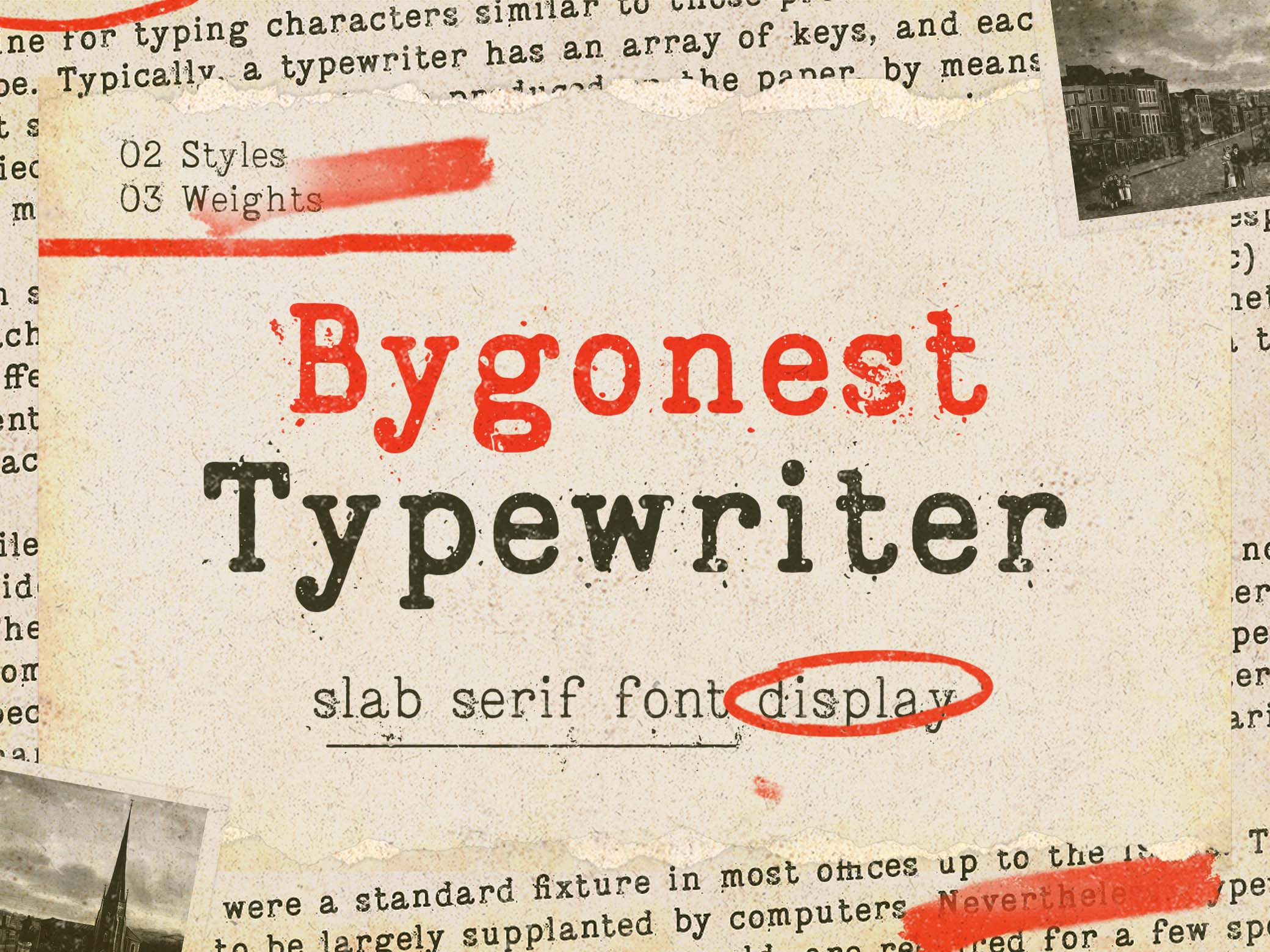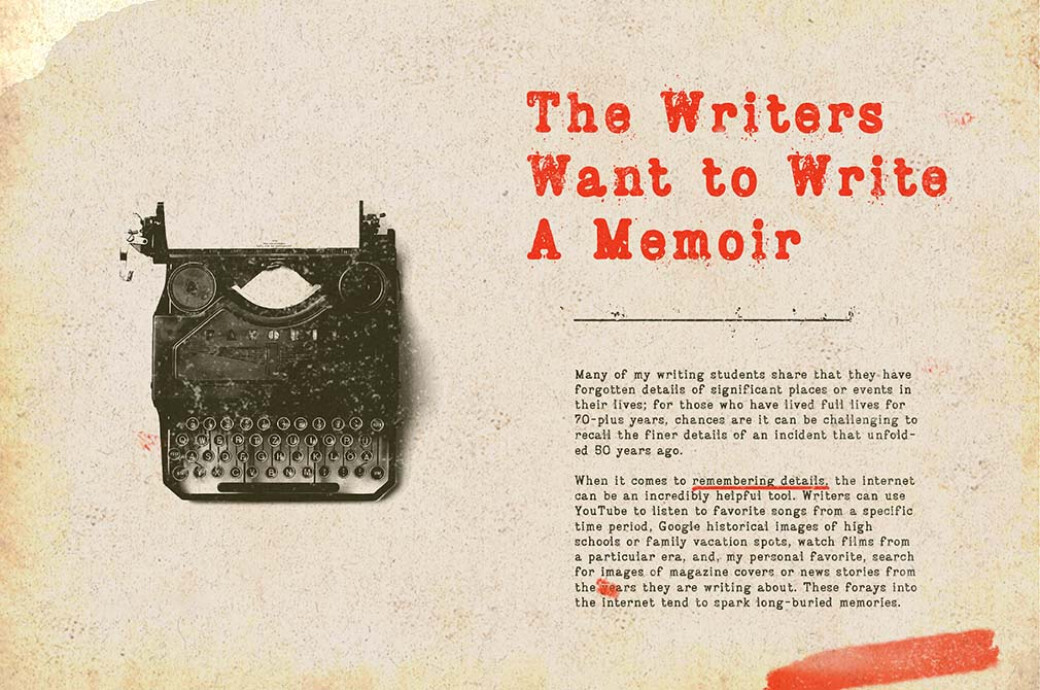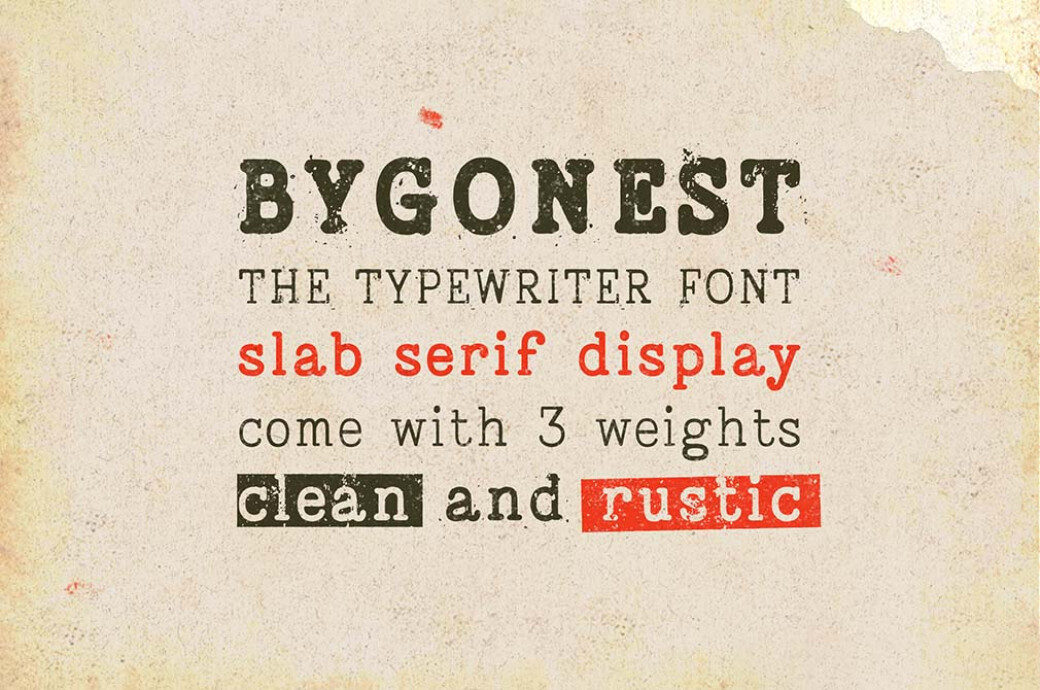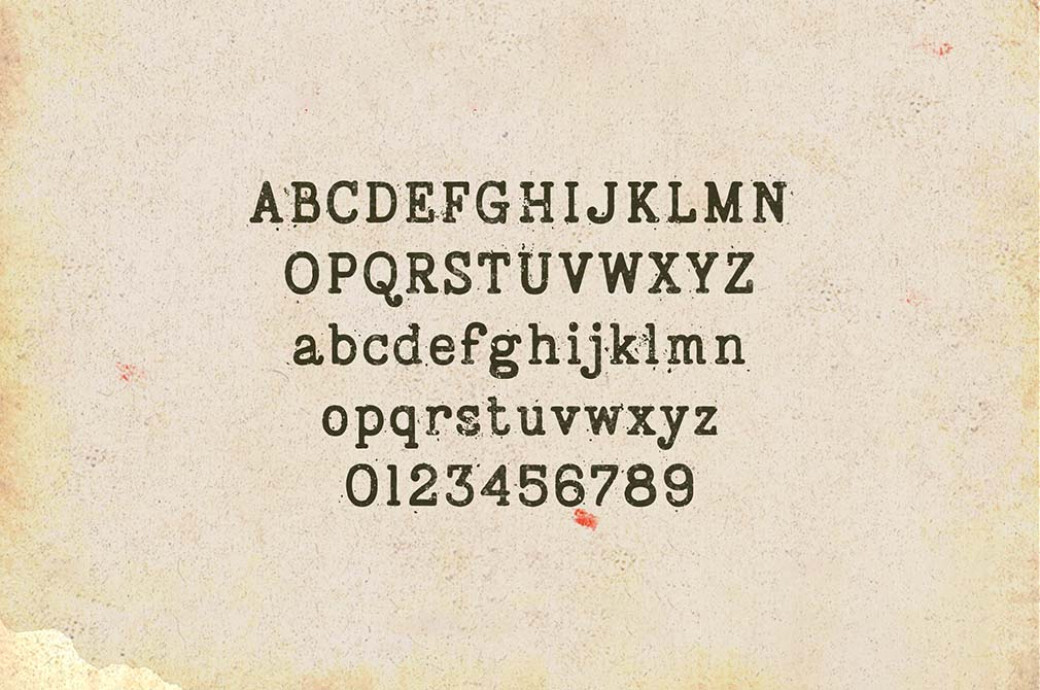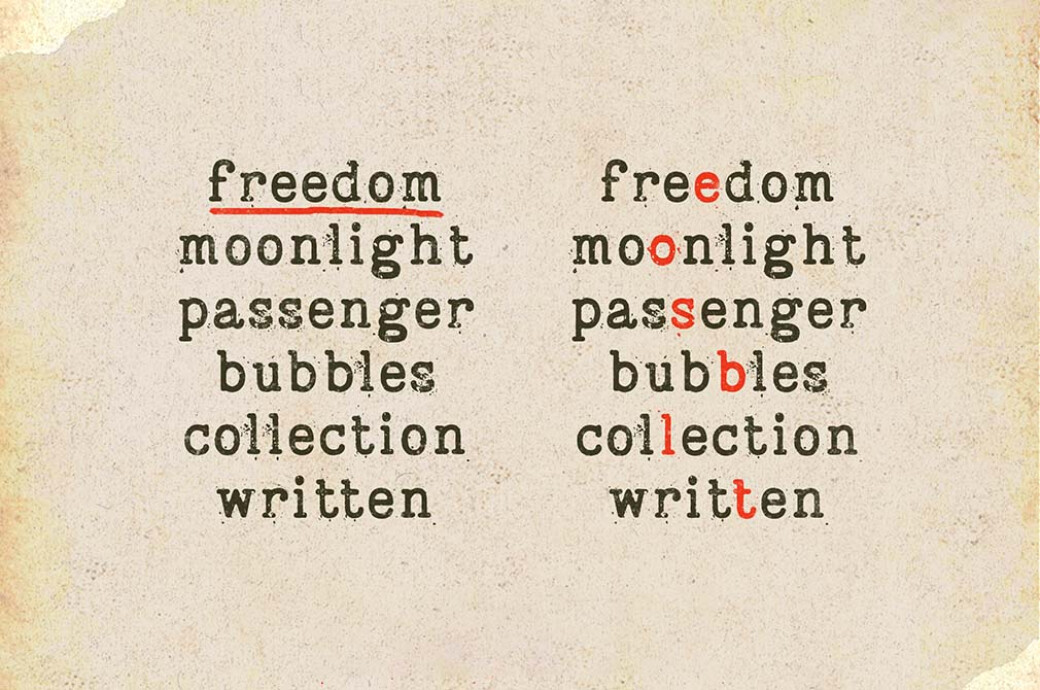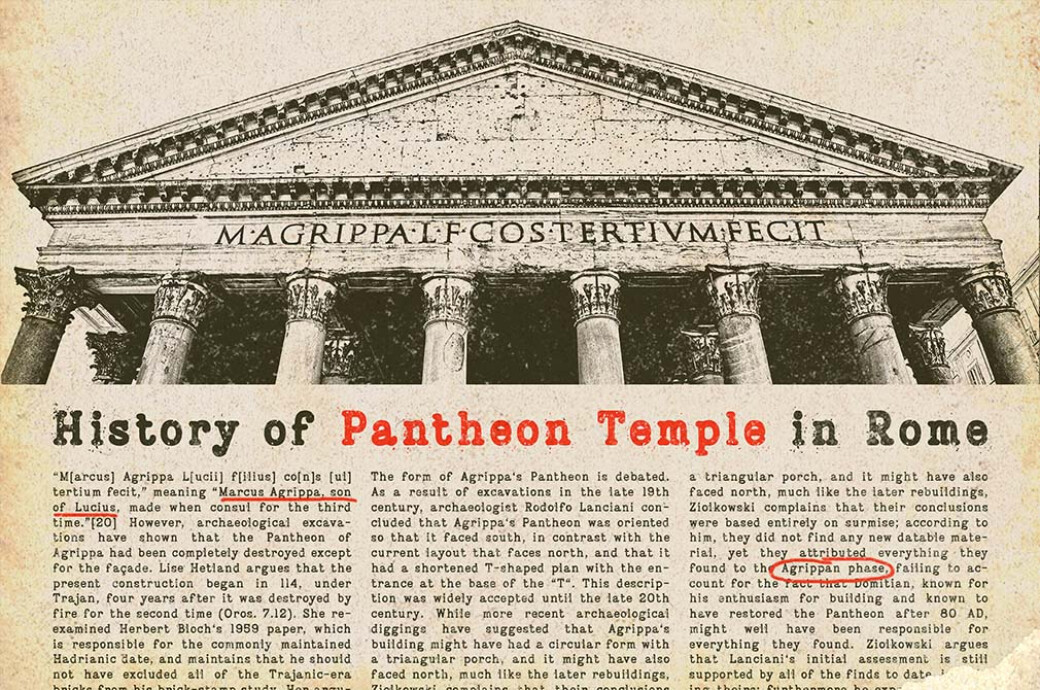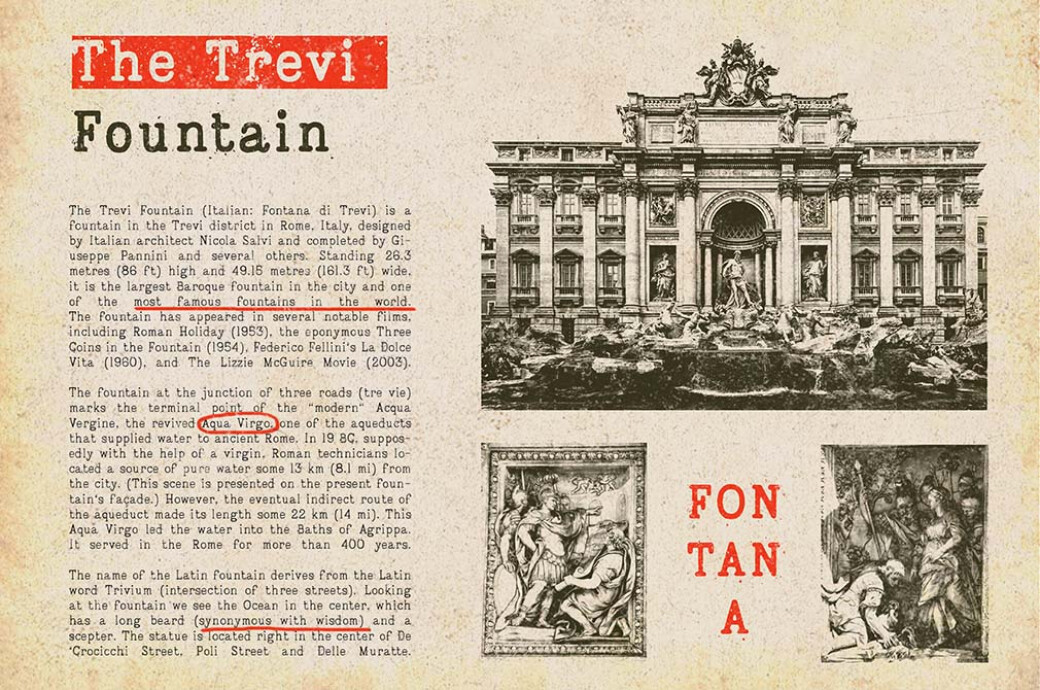
Bygonest Typewriter Font
The boisterous, tapping sound of a typewriter in action is a thing you recognize from the first second! Evoked vintage and rustic visions are not a coincidence: better bring them to life with this typewriter font.The font is inspired by realistic old typewriter lettering. It comes in 2 styles (clean and rustic) and 3 weights (thin, regular, and bold). It includes a set of alternates with different stamp textures, so you can combine the same 2 letters and not be boring. Bygonest brings a versatile type machine font aesthetics, suitable for newspapers, magazines, quotes, logotypes, posters, packaging, branding, and more.